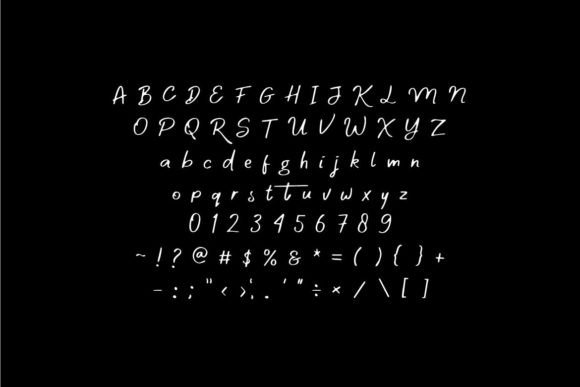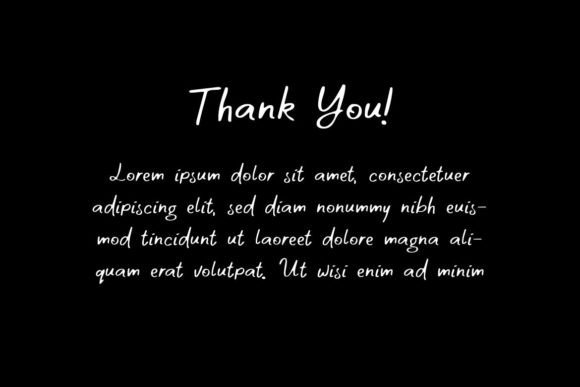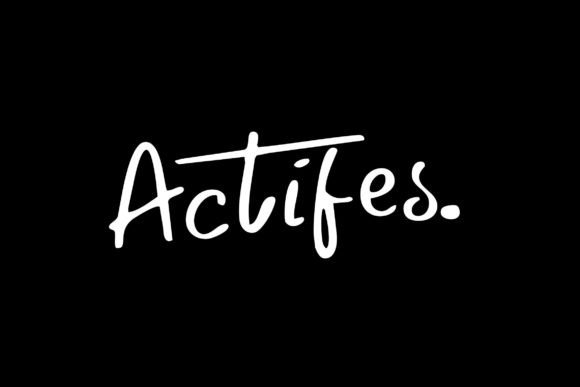
Introducing Actifes Font: Elevate Your Designs with a Personal Touch
In the world of typography, fonts play a crucial role in conveying the tone and personality of a message. For designers and crafters looking to add a unique touch to their work, Actifes Font is an excellent choice. This script font boasts a beautiful handwriting style that brings a personal feel to each word, making it perfect for a wide range of applications.
What is Actifes Font?
Actifes Font is a script font designed to mimic the elegance and fluidity of handwriting. Its unique style sets it apart from more traditional fonts, offering a refreshing alternative for those seeking to add a touch of personality to their designs. Whether you’re working on wedding invitations, posters, advertisements, social media content, logos, or any other project, Actifes Font is sure to make your work stand out.
Key Features of Actifes Font
- Handwriting Style: Actifes Font is crafted to resemble handwriting, giving your text a personal and approachable feel.
- Versatility: This font can be used in a variety of projects, including wedding invitations, posters, advertisements, social media content, logos, and more.
- Unique Touch: The distinctive style of Actifes Font ensures that your designs will have a unique flair, setting them apart from more conventional typography.
- Elegance and Fluidity: The script style of Actifes Font adds a level of elegance and fluidity to your text, making it perfect for projects where you want to convey sophistication and style.
Uses of Actifes Font
The versatility of Actifes Font makes it suitable for a wide range of applications. Here are some of the ways you can use this beautiful script font:
- Wedding Invitations: Add a touch of romance and elegance to your wedding invitations with Actifes Font.
- Posters and Flyers: Create eye-catching posters and flyers that stand out with the unique style of Actifes Font.
- Advertisements: Use Actifes Font in your advertisements to give them a personal touch and make them more engaging.
- Social Media Content: Elevate your social media content with Actifes Font, making your posts and stories more visually appealing.
- Logos: Incorporate Actifes Font into your logo design to give your brand a distinctive and memorable identity.
Tips for Using Actifes Font
To get the most out of Actifes Font, consider the following tips:
- Pair with Complementary Fonts: For maximum impact, pair Actifes Font with complementary fonts that enhance its unique style.
- Adjust Size and Color: Experiment with different sizes and colors to find the perfect combination for your design.
- Use in Combination with Images: Combine Actifes Font with relevant images to create visually appealing and engaging content.
Actifes Font is a versatile and elegant script font that can add a unique touch to any design project. Its handwriting style, elegance, and fluidity make it perfect for a wide range of applications, from wedding invitations and posters to advertisements and social media content. By incorporating Actifes Font into your designs, you can create visually appealing and engaging content that stands out from the crowd. So why not give Actifes Font a try and elevate your designs with a personal touch?